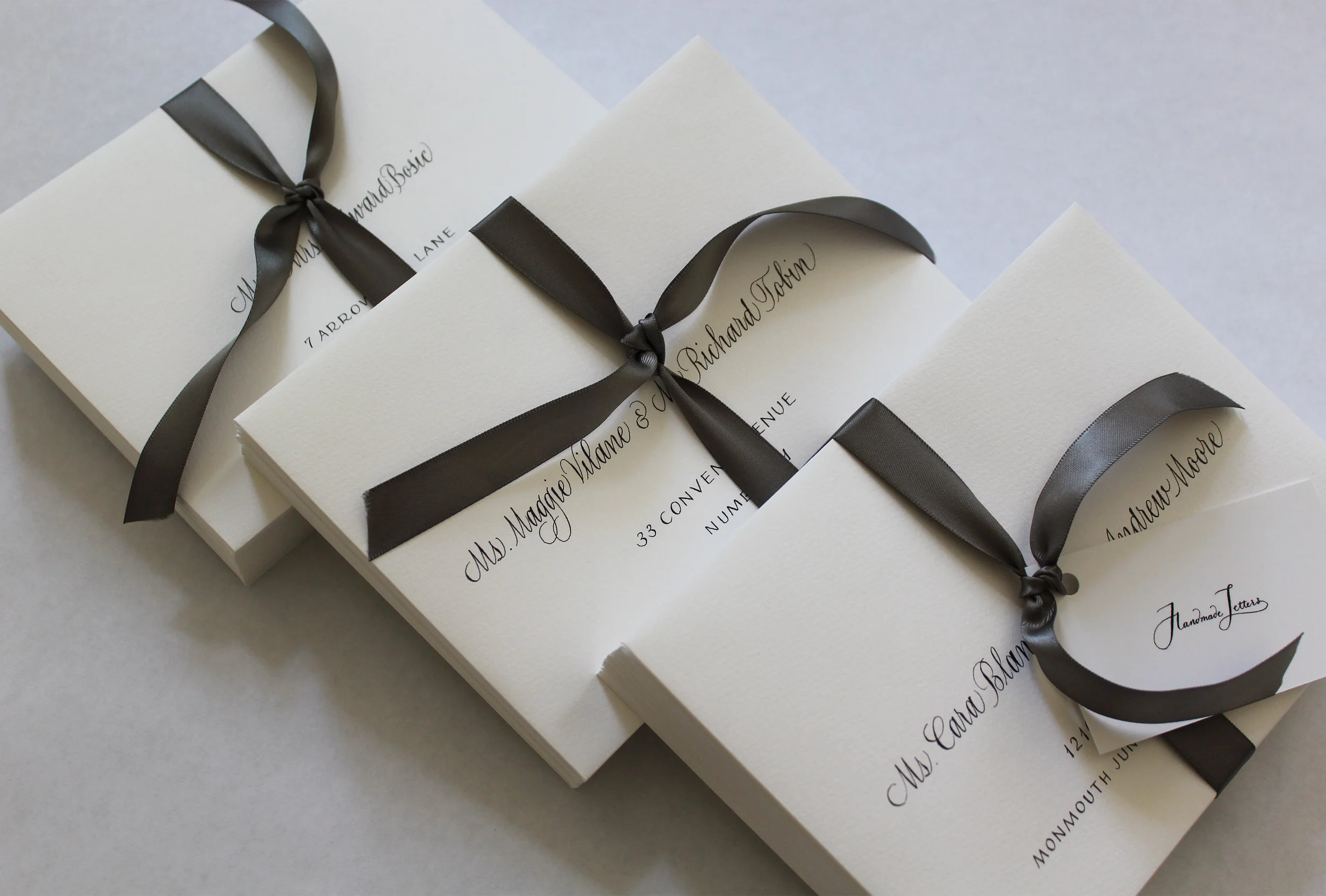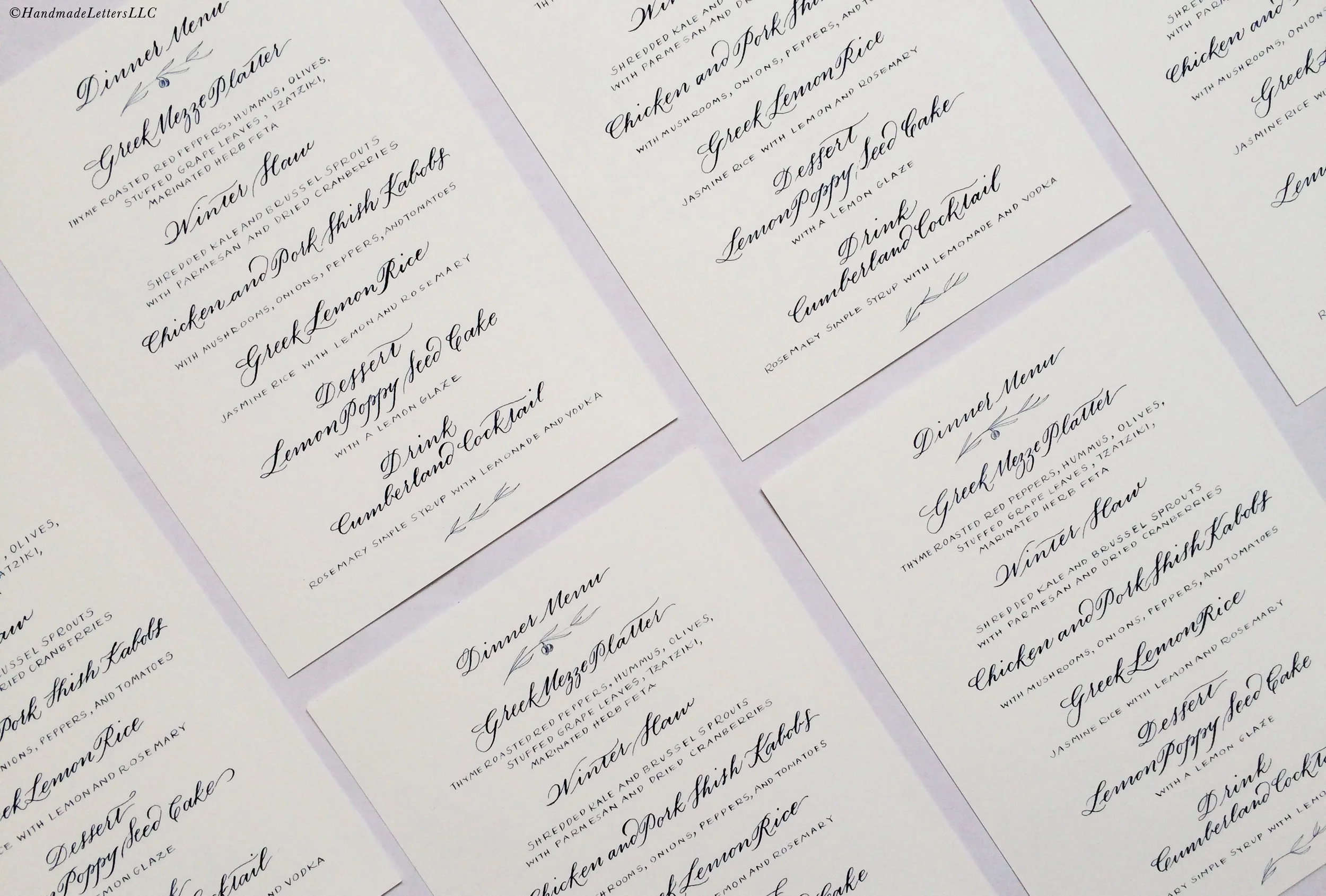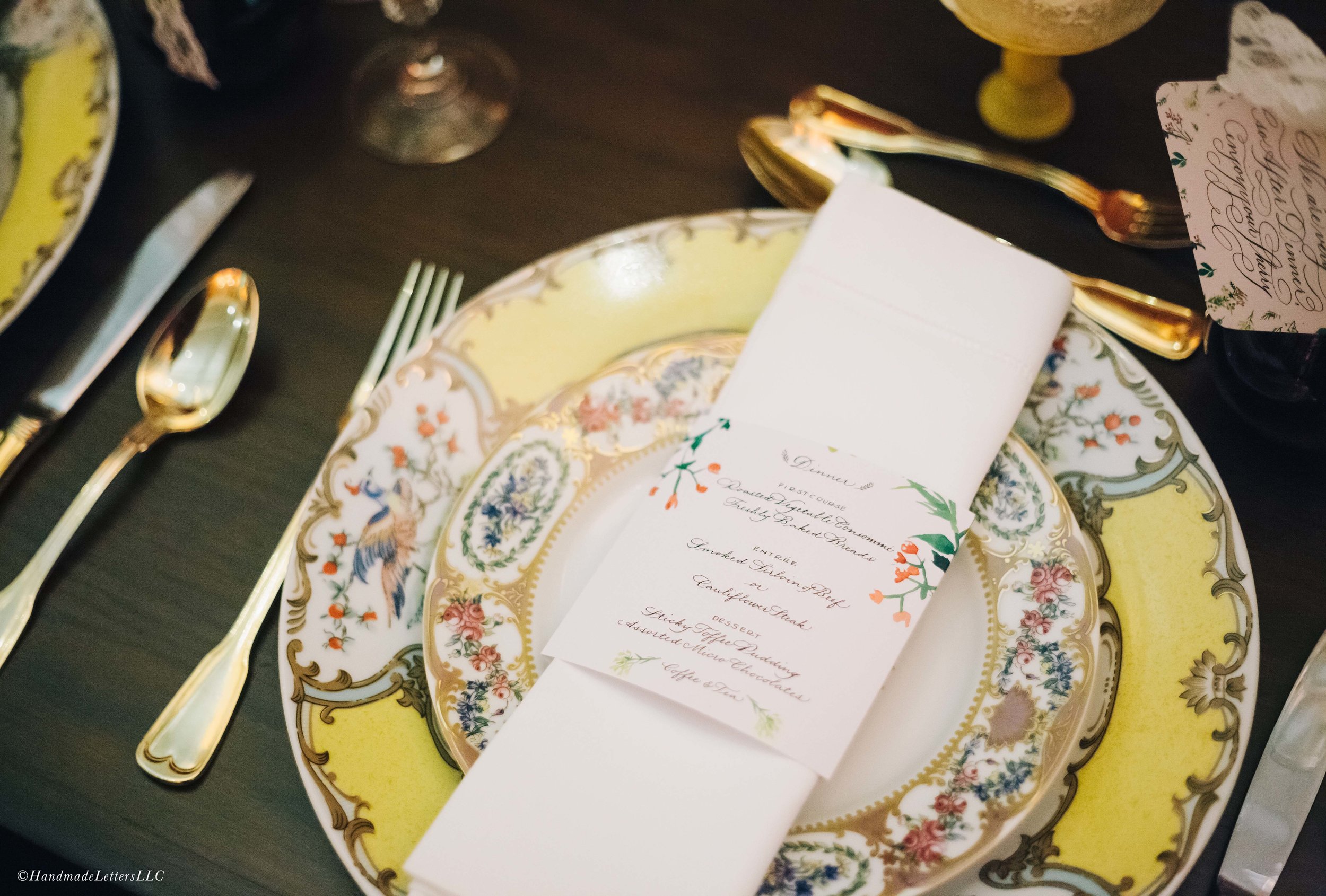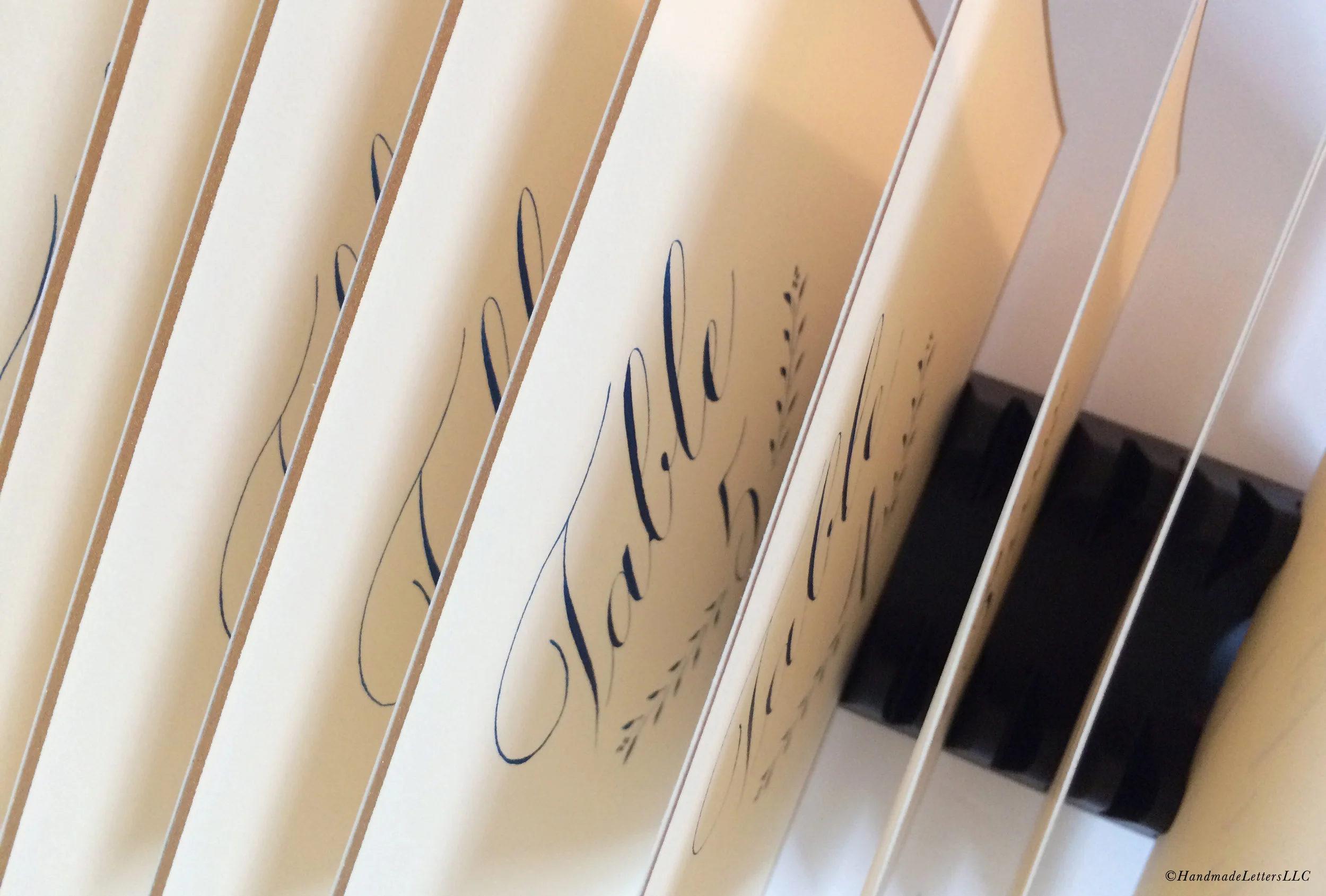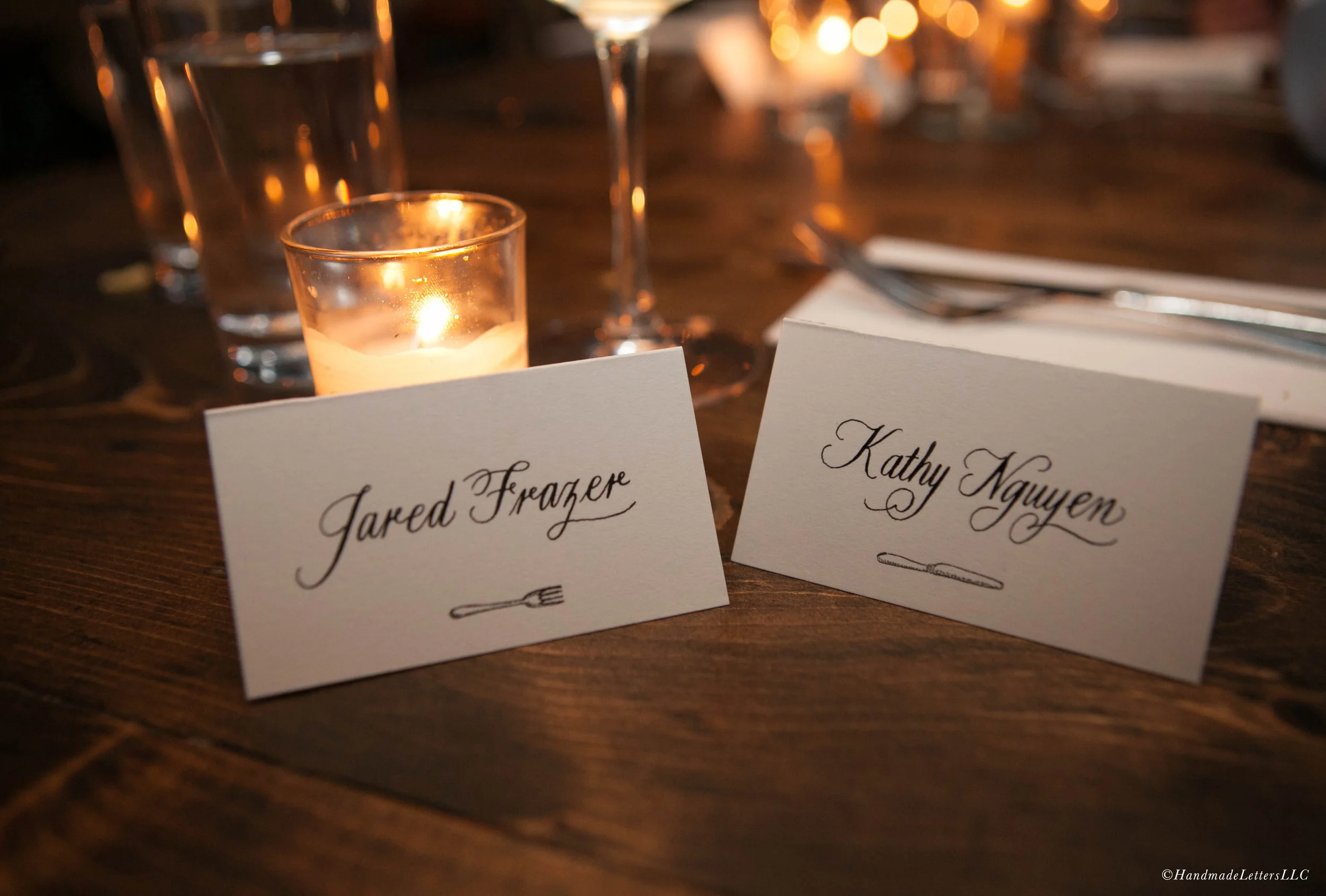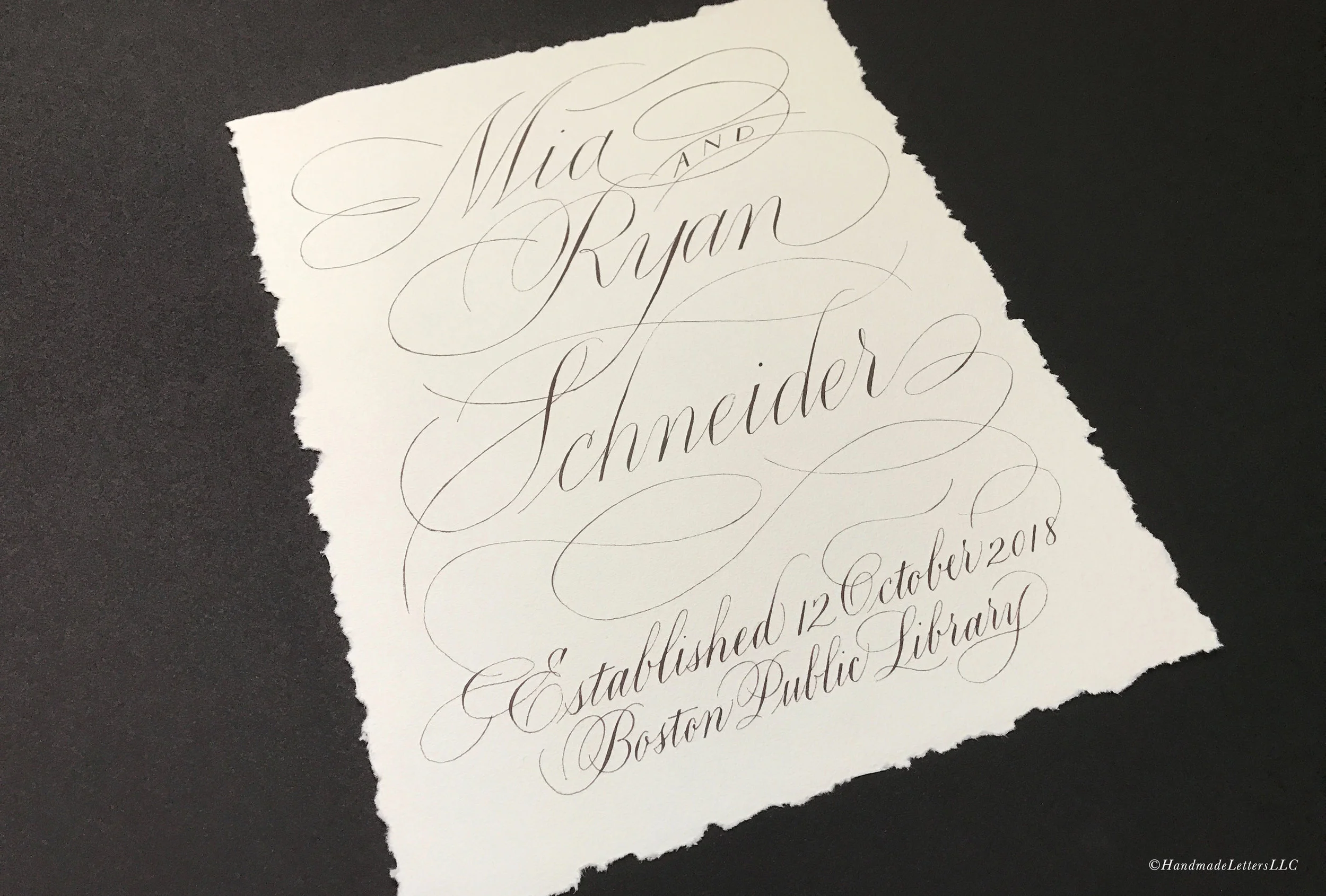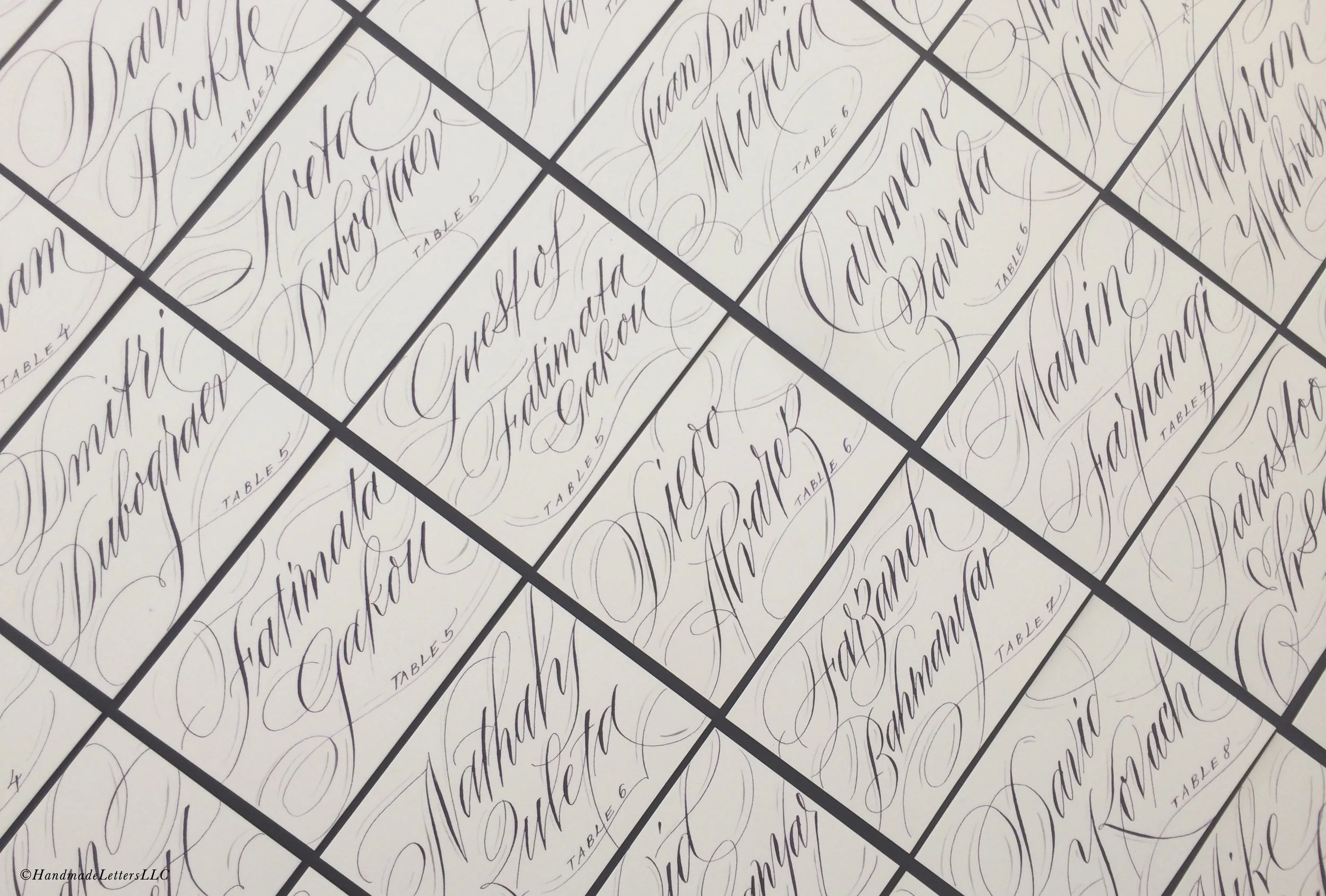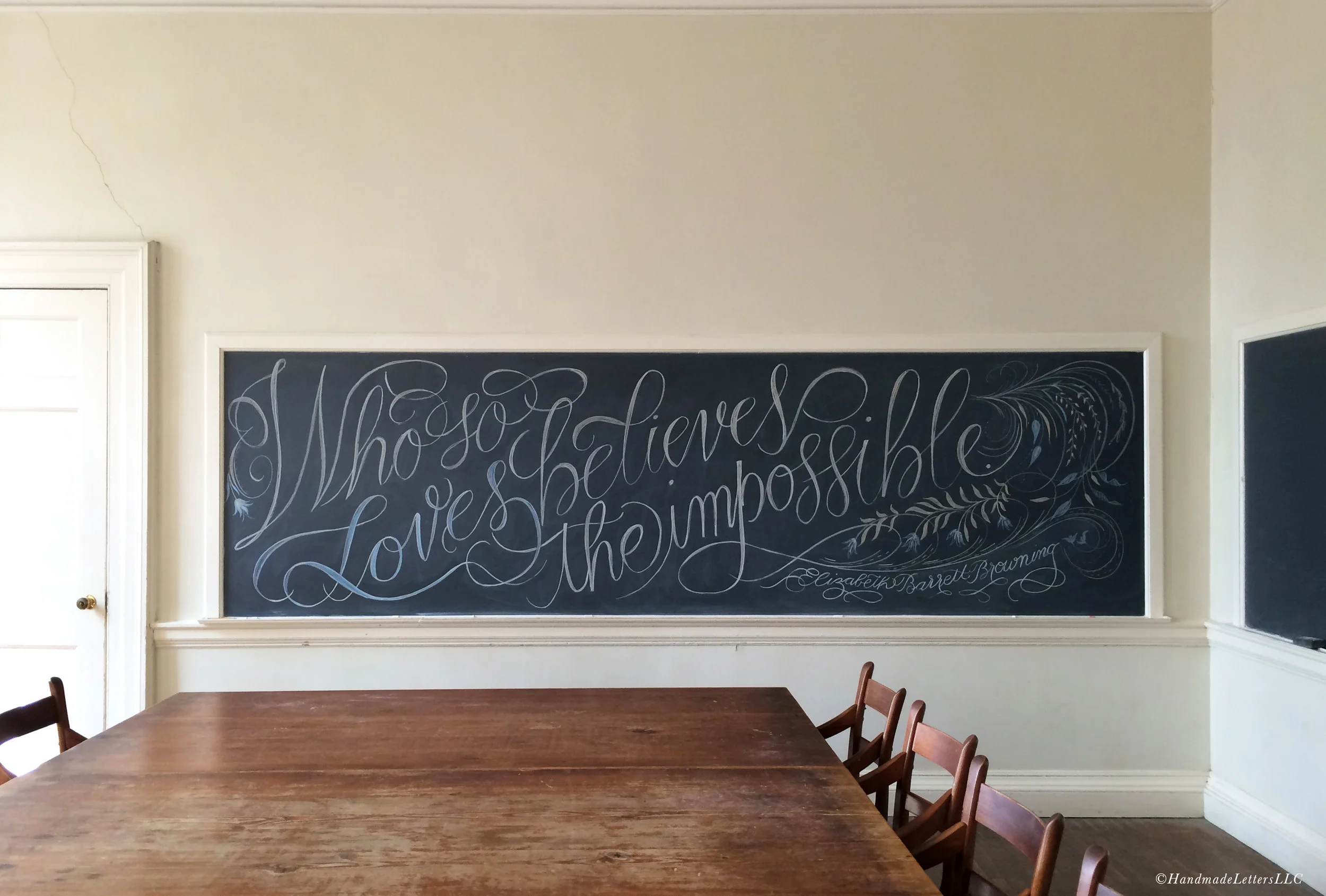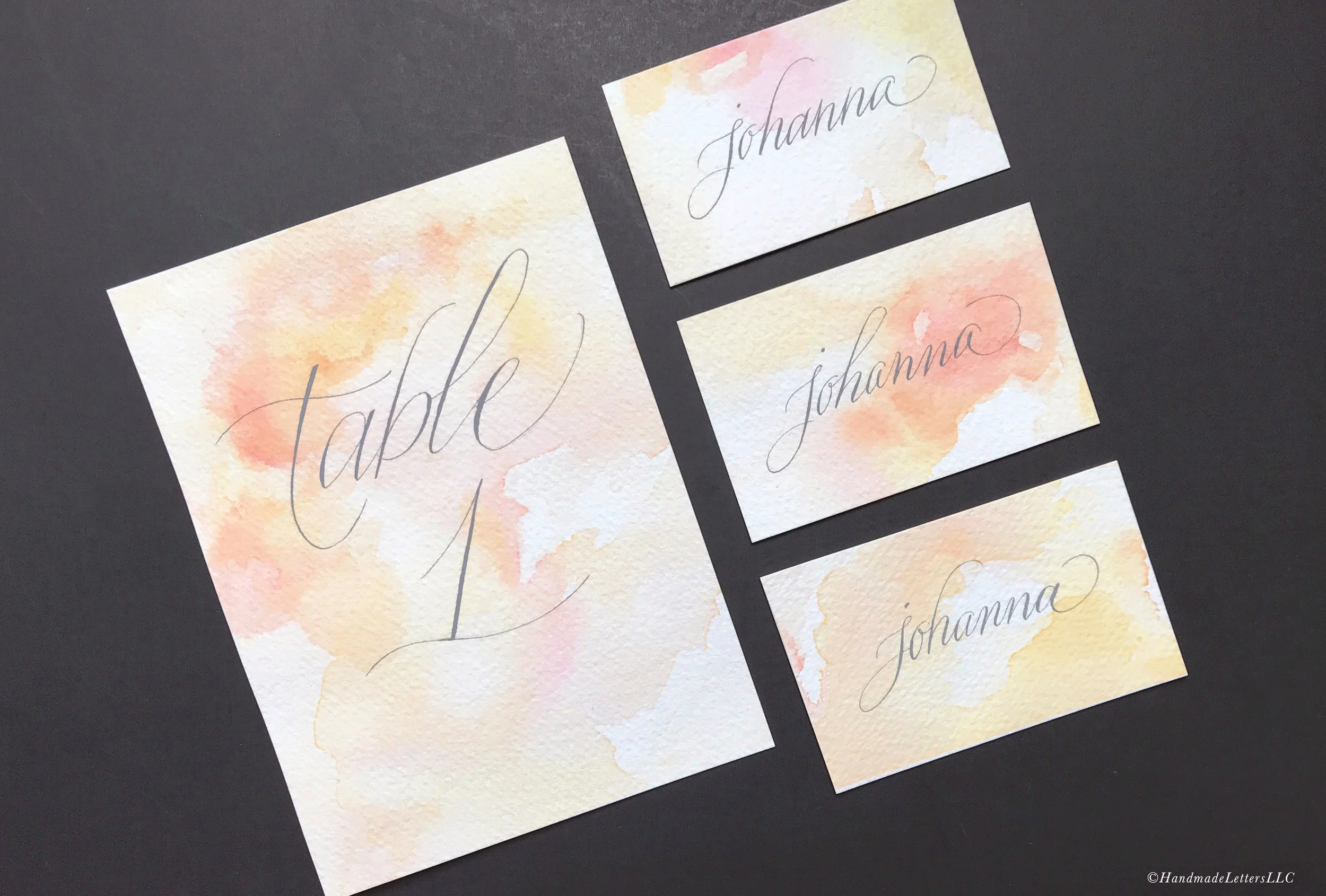
EVENT CALLIGRAPHY
Handmade Letters offers fine calligraphy and lettering for weddings, events, or any special occasion that requires a handmade touch. Current offerings include—but are not limited to—envelope addressing, escort and place cards, table cards, menus, and signage.
Past Work
Handmade Letters - Hand-drawn menus for a Mediterranean dinner party
Handmade Letters - Hand-Lettered Chalkboard
Handmade Letters - Wedding Place Cards in Modern Script
Handmade Letters - Wedding Envelopes in Modern Script
Handmade Letters - Wedding Envelopes with a Modern Script
Handmade Letters - Calligraphed dinner cards. Photo courtesy of Leslie dela Vega.
Handmade Letters - Wedding Envelopes with Vintage Stamps
Handmade Letters - Table Card in Flourished Copperplate
Handmade Letters - Calligraphed Escort Cards for Wedding Guests
Handmade Letters - Wedding Envelopes in Classic Copperplate
Handmade Letters - Calligraphed table numbers for a wedding
Handmade Letters - Certificates of Appreciation
Handmade Letters - Greeting Sign for Wedding Reception
Handmade Letters - Modern Wedding Envelopes
Handmade Letters - Place Cards with Custom Wedding Monogram
Handmade Letters - Wedding Envelopes
Handmade Letters - Citrus-Themed Watercolor Washes
Handmade Letters - Wedding Envelopes in Modern Italic
Handmade Letters - Wedding Place Cards in Copper Ink